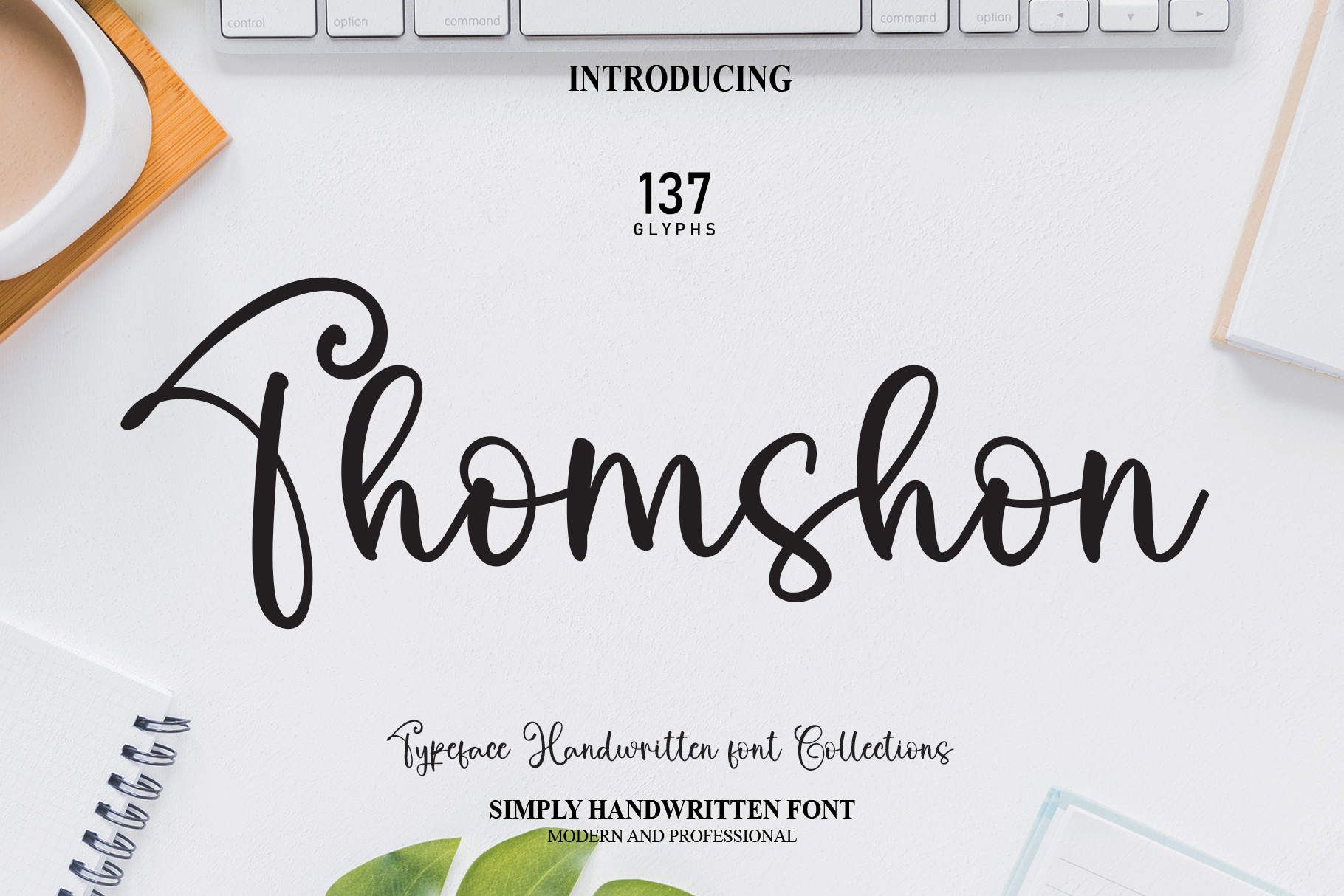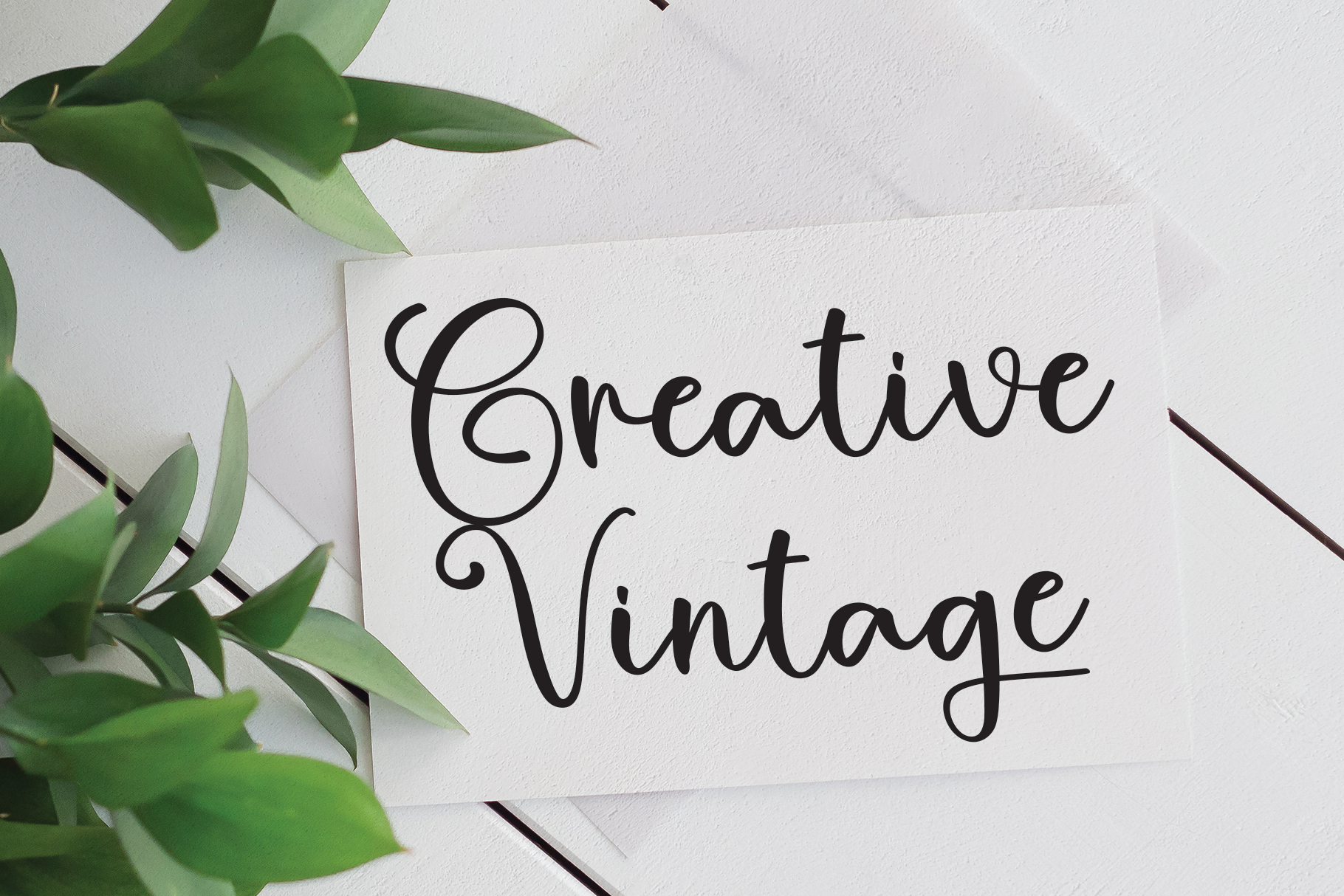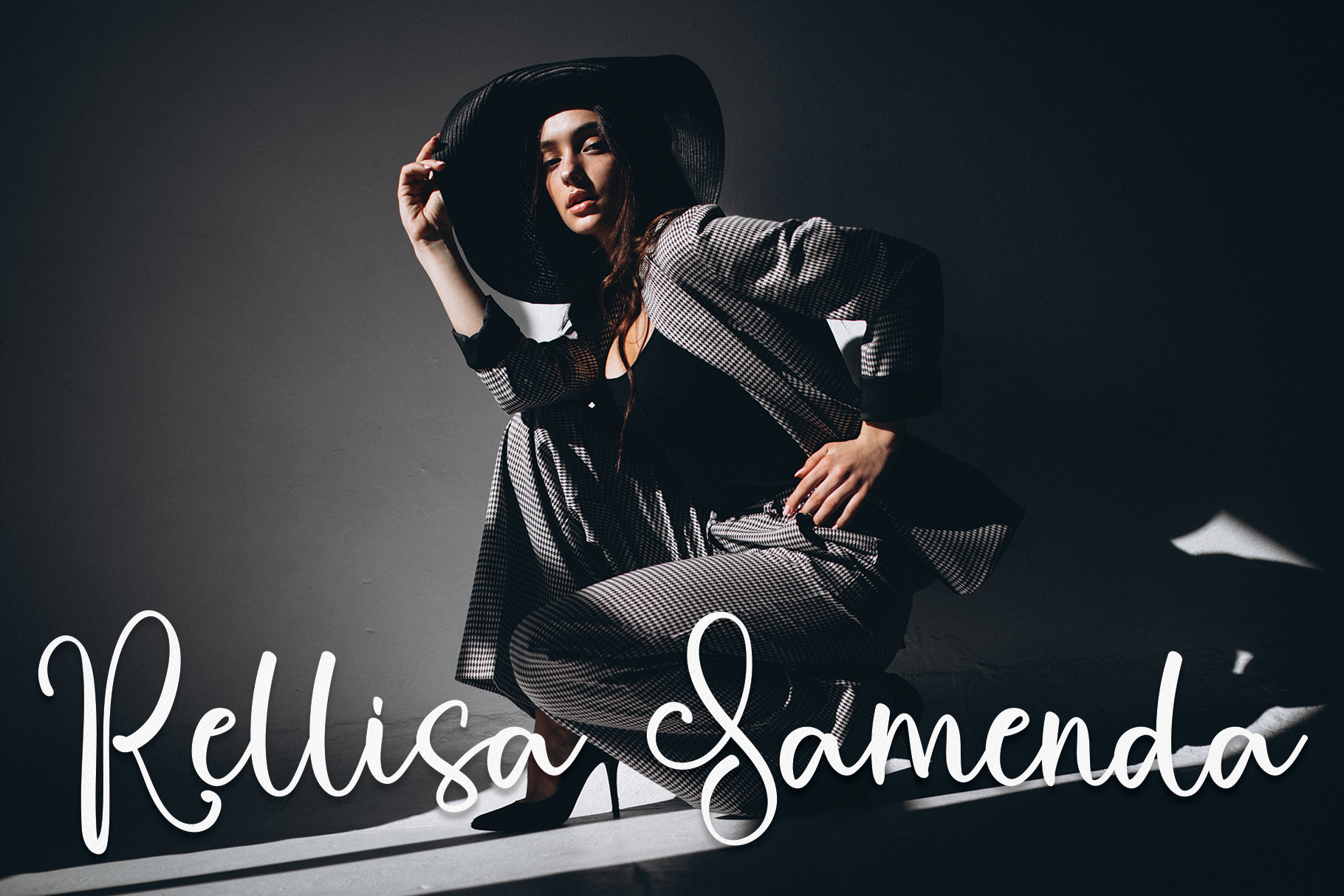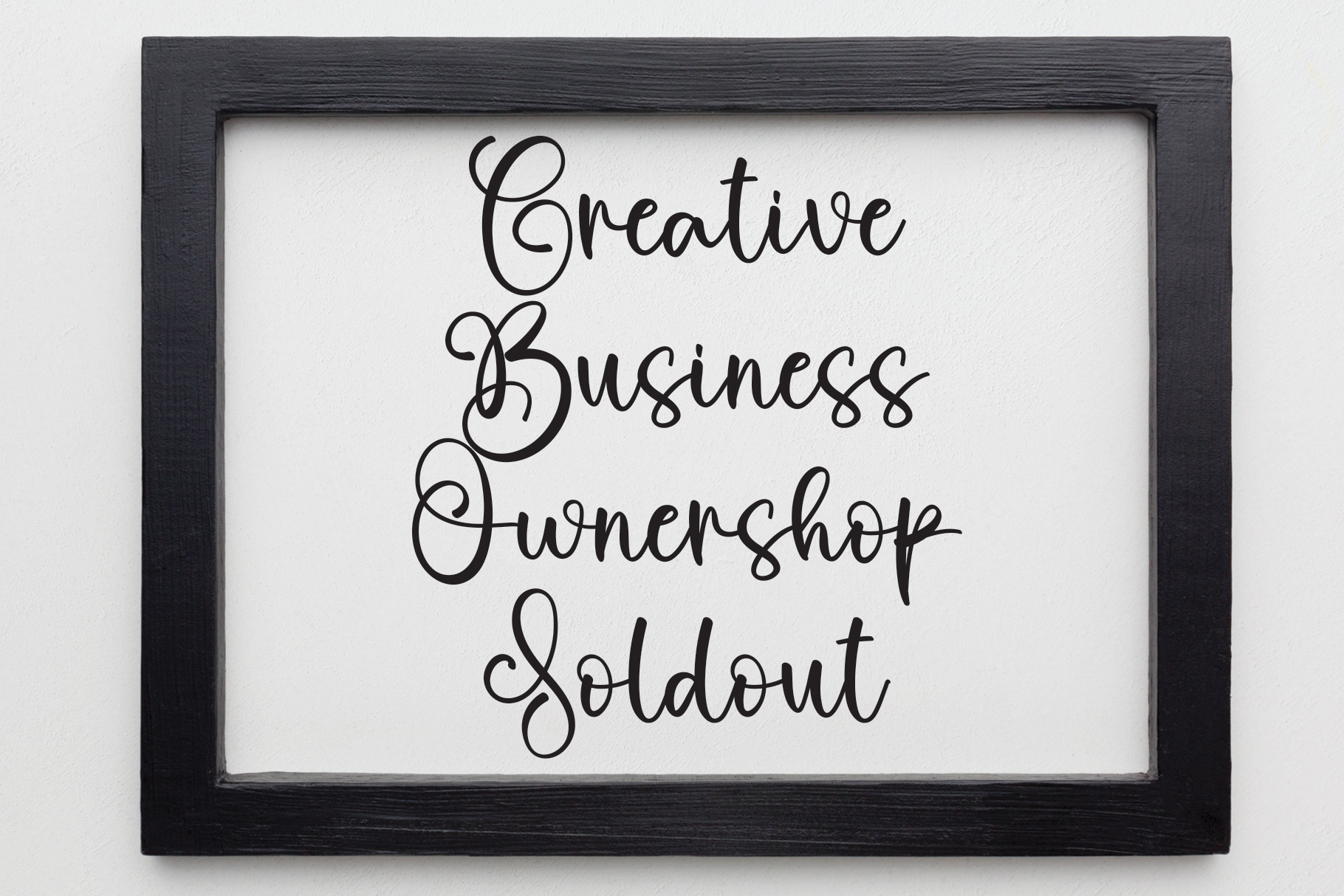
Thomshon Script Font
This is a sweet and delicate handwritten font. Dainty and joyful, this font will be ideal for writing wedding invitations, cards or any other design that may need a romantic, personalized touch!
the latest style letters are perfect for wall displays, wedding invitations, social media post logos, advertisements, product packaging, product designs, labels, photography, watermarks, invitations, stationery, and any project that requires taste handwriting.